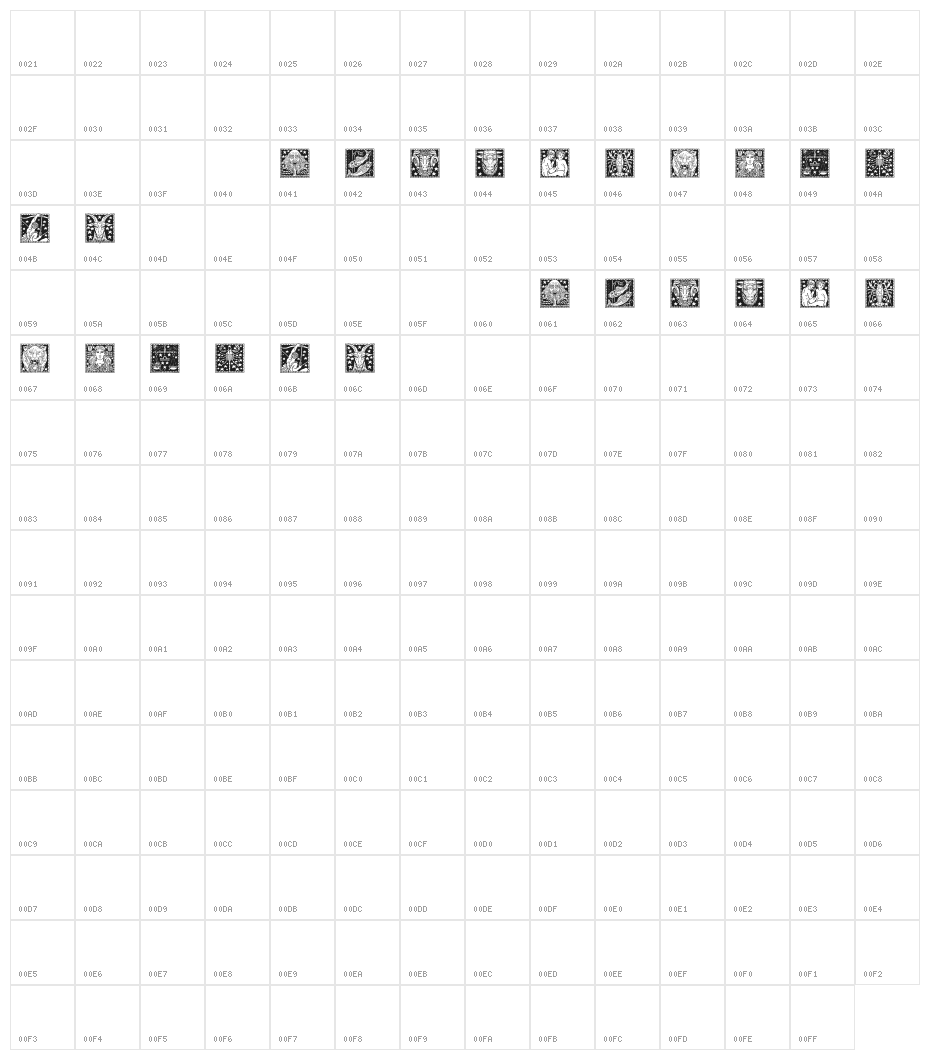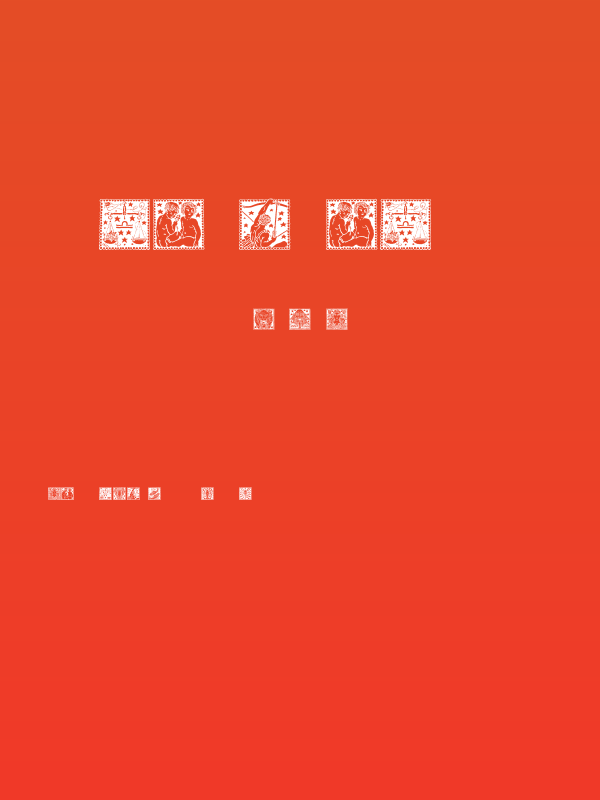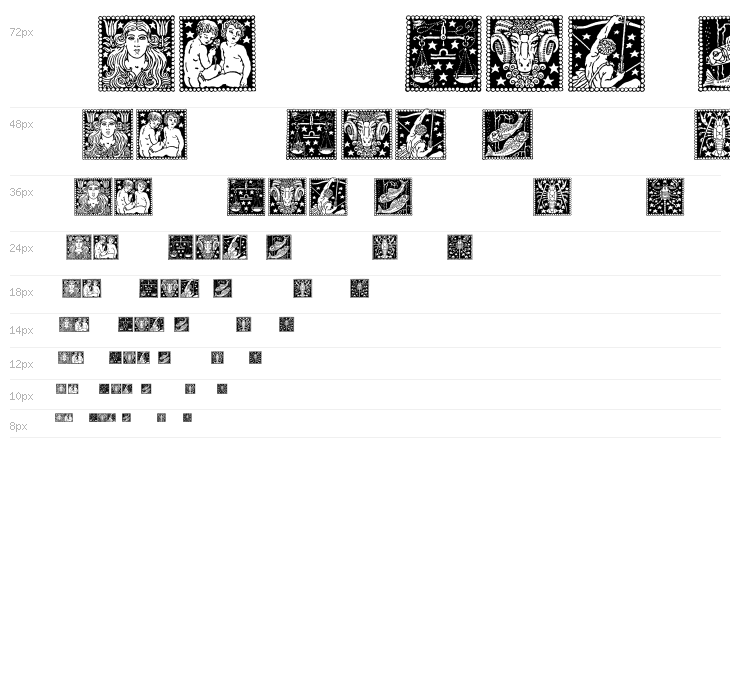
Tierkreis 4 Font
Tierkreis 4 Description
This image does not display a valid font. Instead, it features a series of decorative zodiac symbols, each intricately designed with detailed illustrations representing the twelve astrological signs. Each symbol is enclosed within a square frame, emphasizing its unique artistic style. The designs are rich in detail and texture, showcasing a blend of traditional and mystical elements. The overall presentation is more aligned with artistic or illustrative work rather than typographic design.
| Use Case | Illustrations, Art projects, Astrology-themed designs |
| Proposed Projects | These symbols could be used in projects related to astrology, such as calendars, posters, or themed event decorations. |